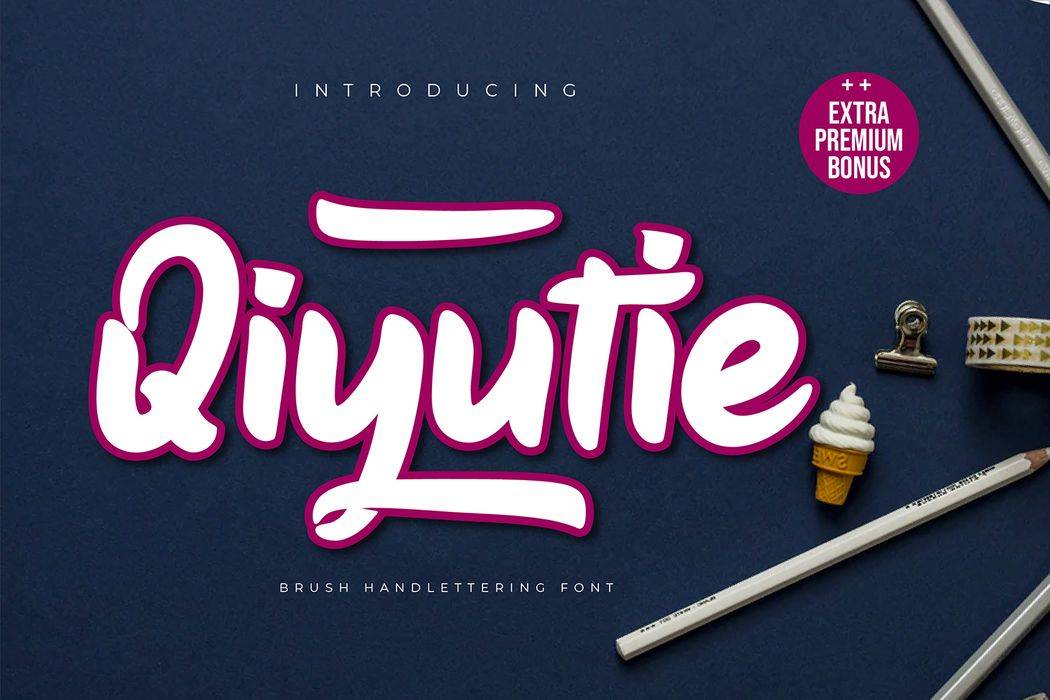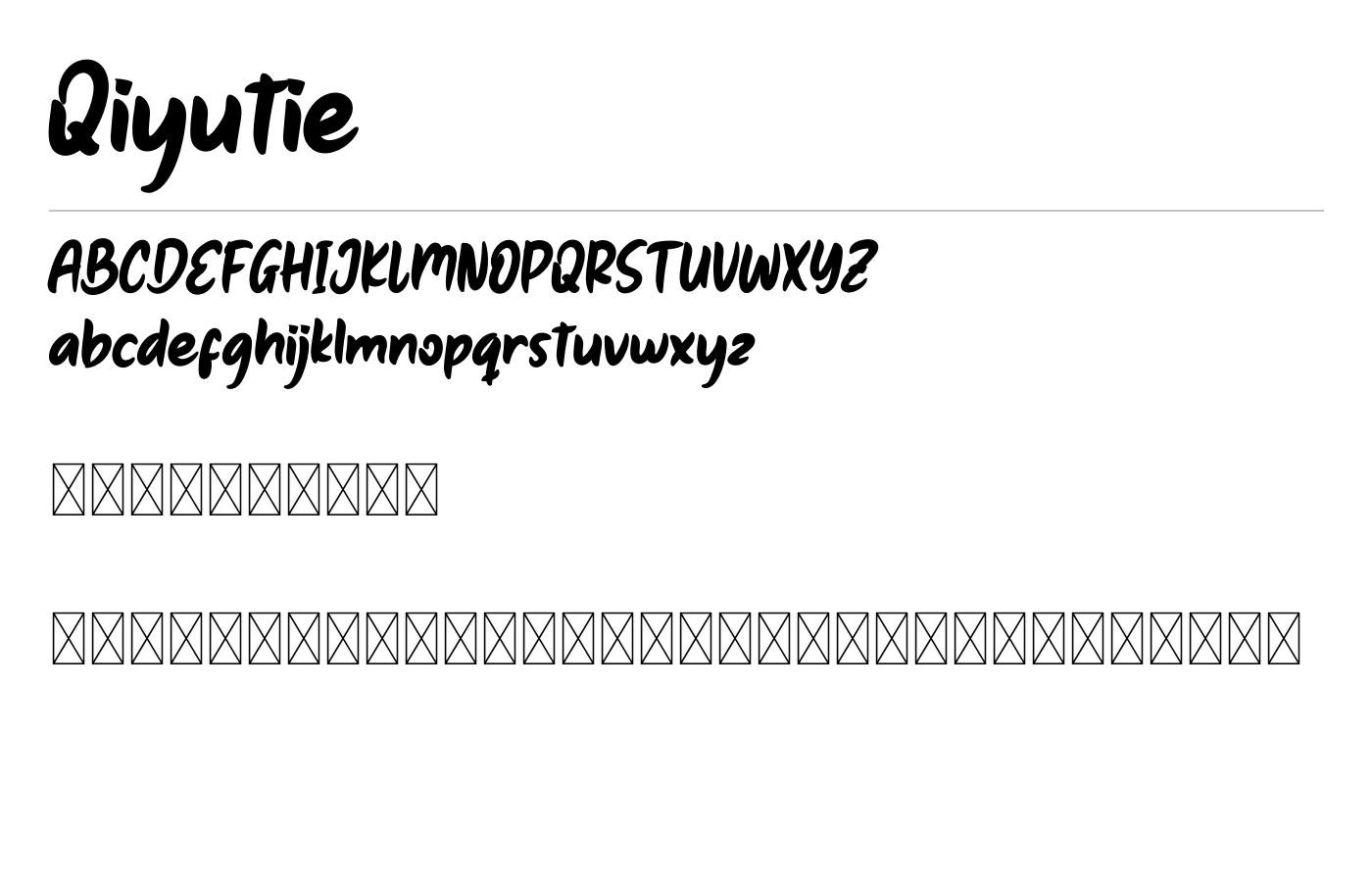
Qiyutie is a playful and casual script-style font with bold, rounded strokes that give it an inviting and friendly feel. Its smooth, brush-like letterforms offer good legibility and a lively personality, making it perfect for informal branding, creative projects, and fun headlines. This font works well where a warm, approachable touch is needed, such as in packaging, children’s books, or lifestyle websites.
Qiyutie Font
About Qiyutie Font